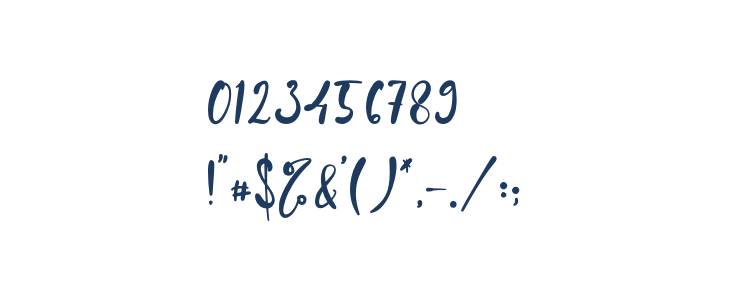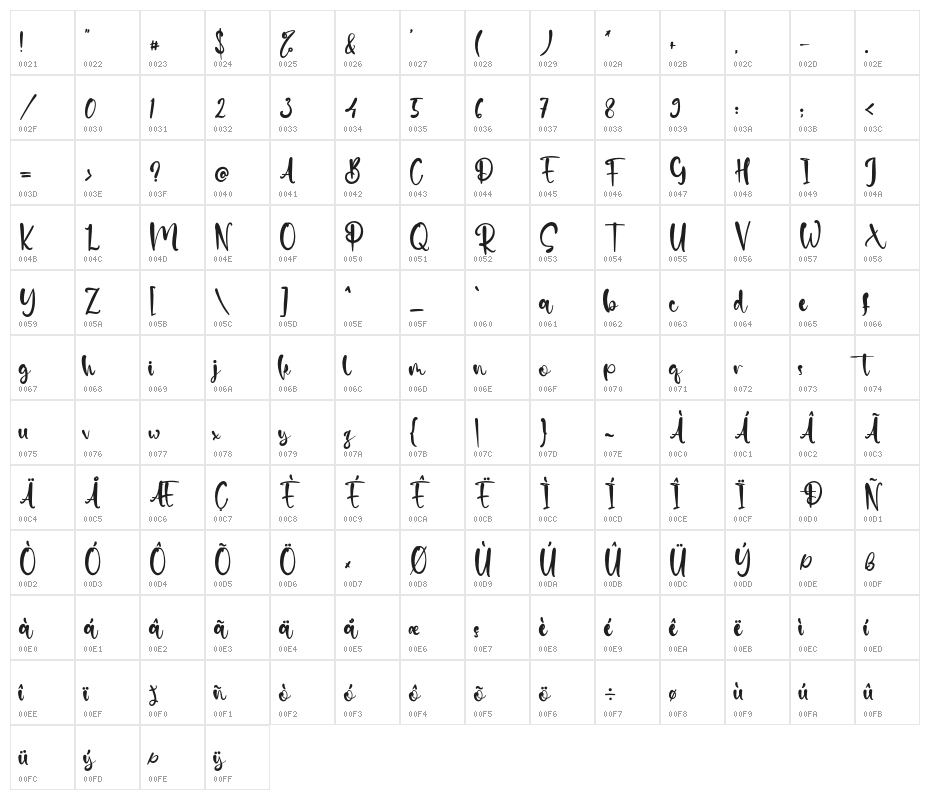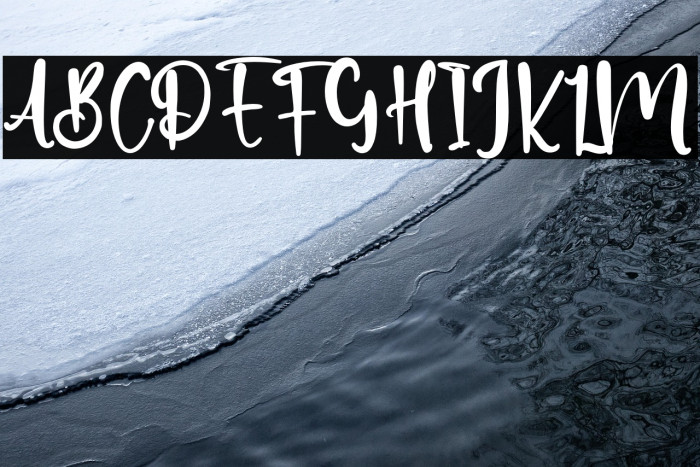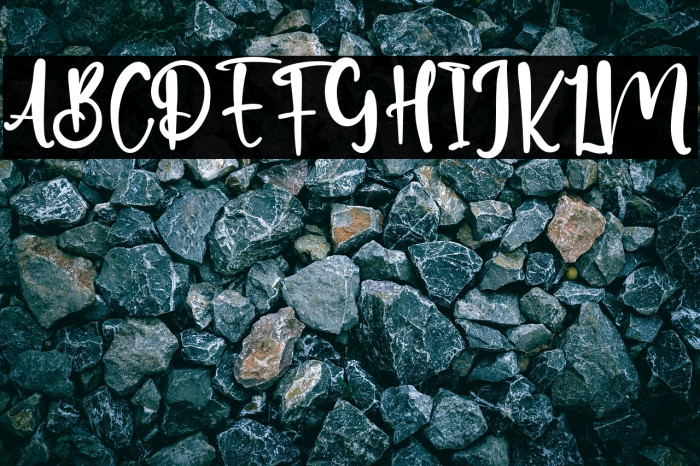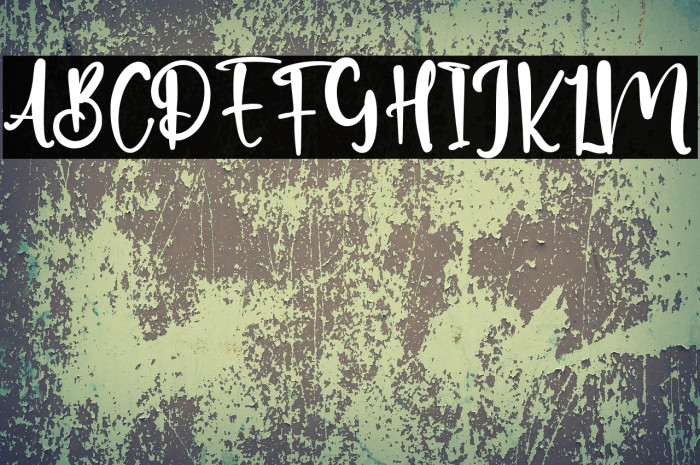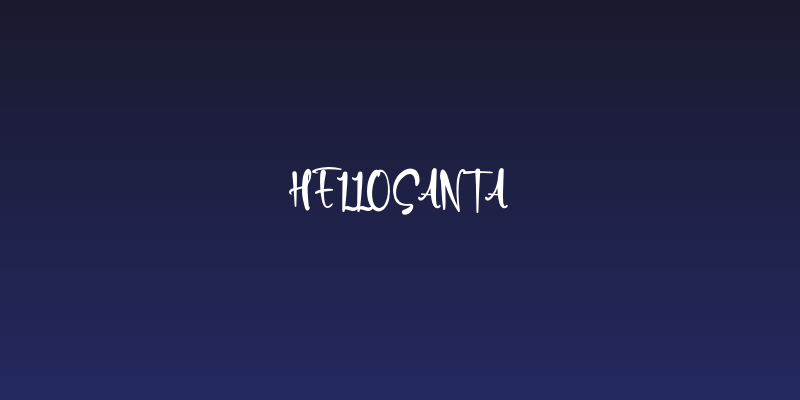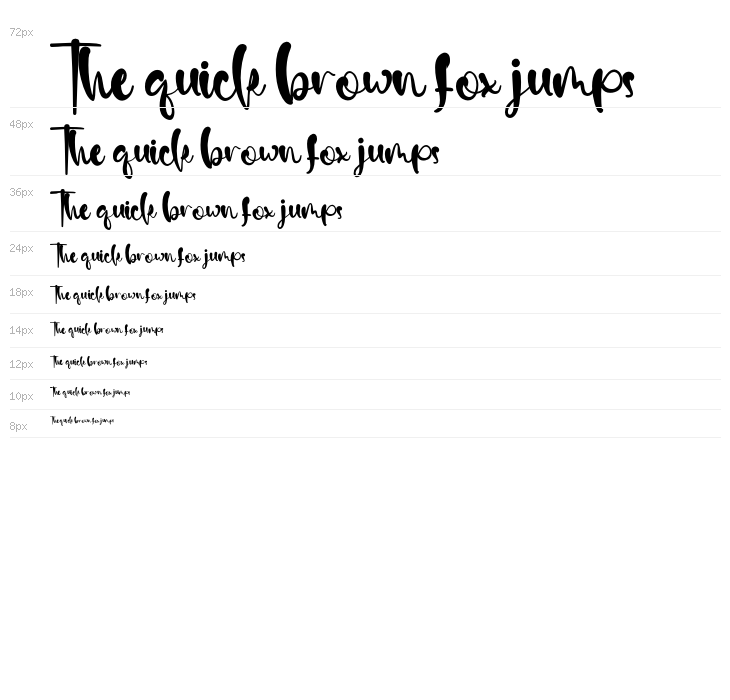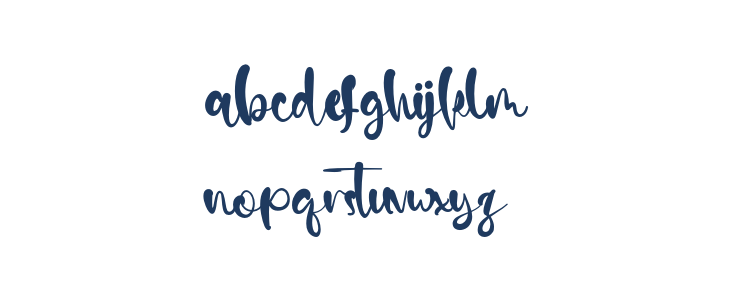
HelloSanta Font
HelloSanta Description
This font features a playful and whimsical handwritten style, characterized by smooth, flowing curves and a casual, informal appearance. The uppercase letters are bold and expressive, with varying stroke widths that add a dynamic feel. The lowercase letters maintain a consistent style, with some characters featuring unique loops and swirls that enhance the font's charm. Numbers and special characters are designed to match the overall aesthetic, ensuring a cohesive look across all text elements. This font exudes a friendly and approachable vibe, making it suitable for creative and informal projects.
| Use Case | Logos, Headlines, Invitations |
| Proposed Projects | Ideal for greeting cards, invitations, playful branding, and social media graphics. |